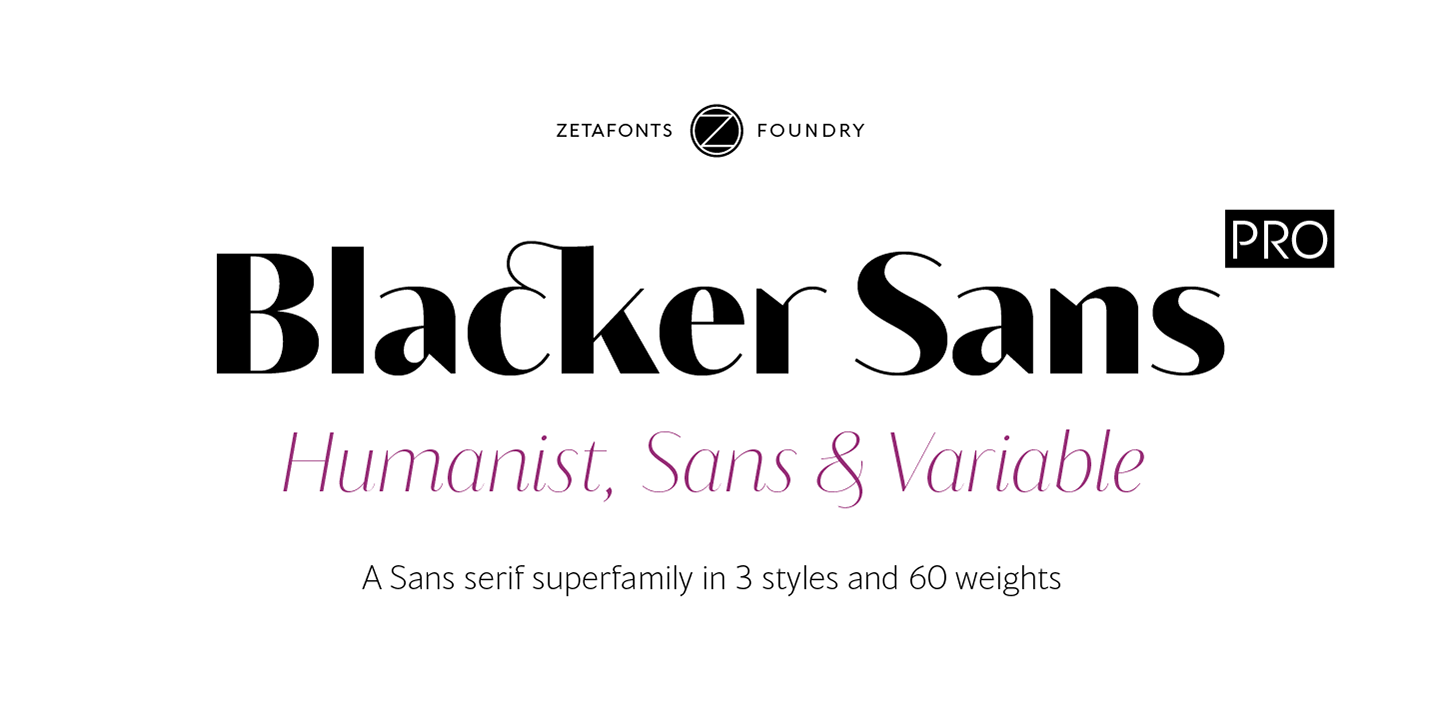
Blacker Sans Pro Font is ideal for luxury branding, high-end fashion magazines, premium product packaging, editorial headlines, architectural signage, art gallery exhibitions, sophisticated web design, premium marketing materials, and upscale corporate communications. This ultra-bold sans-serif typeface brings dramatic impact, modern elegance, and commanding presence to any project requiring maximum visual authority.
What makes Blacker Sans Pro Font exciting is its exceptional weight and striking contrast that creates unparalleled visual hierarchy and dramatic emphasis. The font features ultra-heavy letterforms with precise geometric construction and refined details that maintain clarity even at extreme boldness. Its commanding presence makes ordinary text extraordinary, transforming simple messages into powerful statements that demand attention and convey premium quality and sophistication.
The Blacker Sans Pro Font family includes the signature black weight along with supporting weights from regular to extra black, complete with matching italic styles. The professional version features extended character sets, multilingual support, advanced OpenType features, stylistic alternates, and comprehensive punctuation for sophisticated typography applications.
Whether you're creating luxury brand identities or high-impact editorial designs, Blacker Sans Pro Font Free Download provides unmatched typographic power and versatility. This typeface performs exceptionally well in both large display applications and carefully spaced smaller text, maintaining its distinctive character across all sizes. Its premium aesthetic makes it perfect for brands that need to communicate exclusivity, quality, and innovation. The font's bold personality helps establish strong brand recognition while ensuring maximum readability and professional presentation in any context.